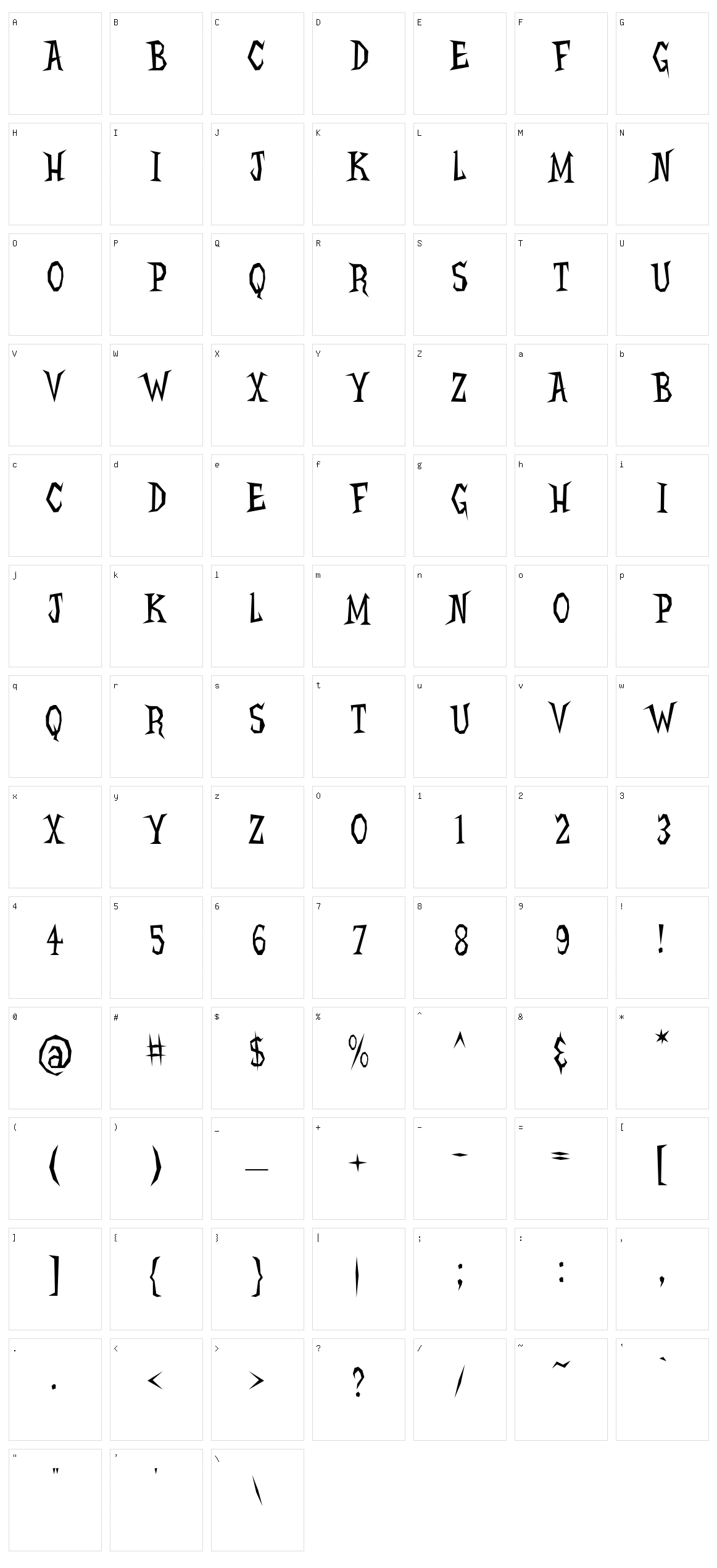
The free font Hellcats BV is carefully designed by Jess Latham, showcasing a thoughtful balance of creativity and usability and falls under the Cartoon font style. When you download the ZIP file, it contains only 39.91 KB of font files, making it lightweight and quick to download. Please review the license details below to understand permitted usage and distribution rights. If license information is not available, we recommend using this font for personal projects only or contacting the author directly for commercial usage permissions.